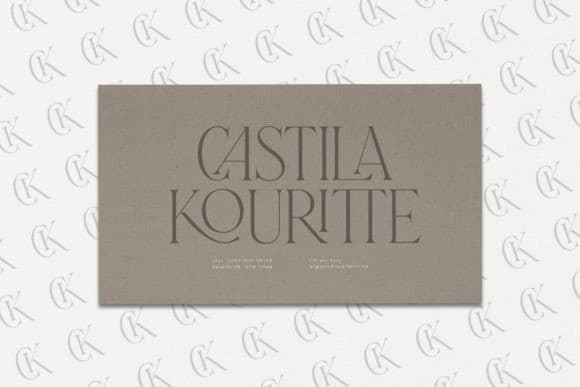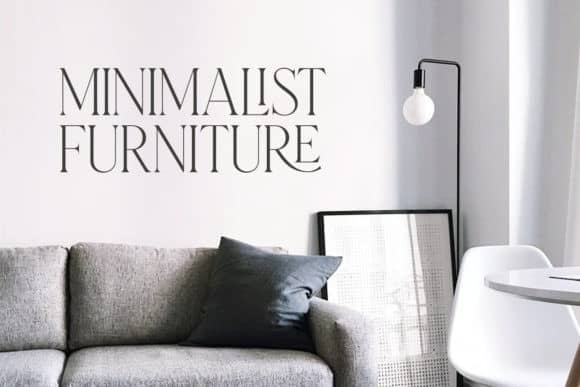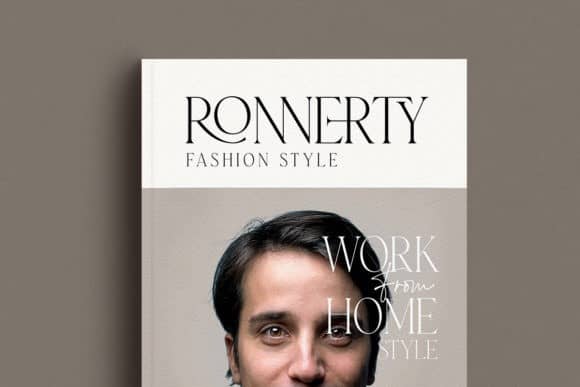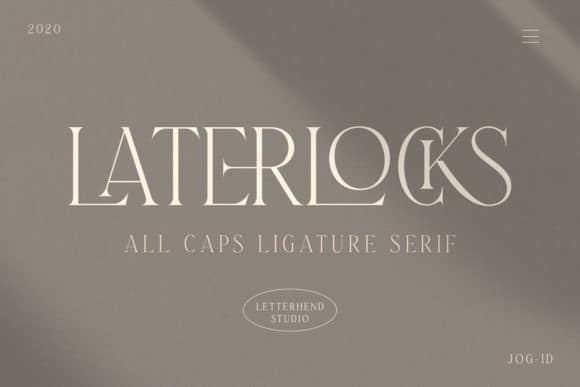
Laterlocks Serif Font is a all-caps serif typeface with small caps with ligatures. Made from font designer named letterhend. A sophisticated serif font. It features an incredibly classic style, while still keeping a friendly feel. Laterlocks is the perfect font for making original and outstanding designs. this is perfect for branding, logos, invitation, masterheads and more.